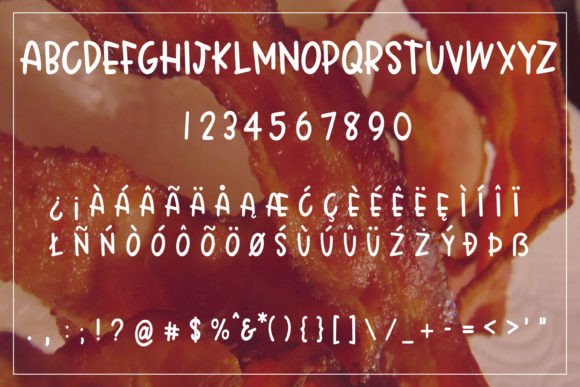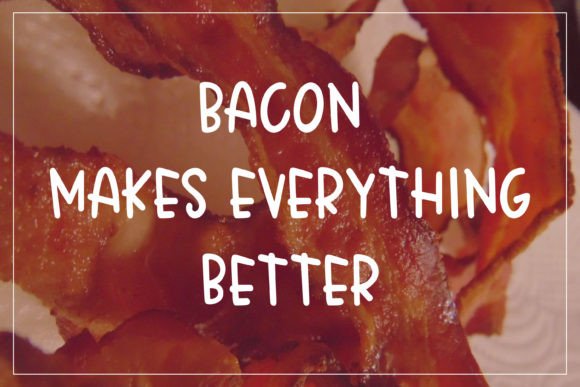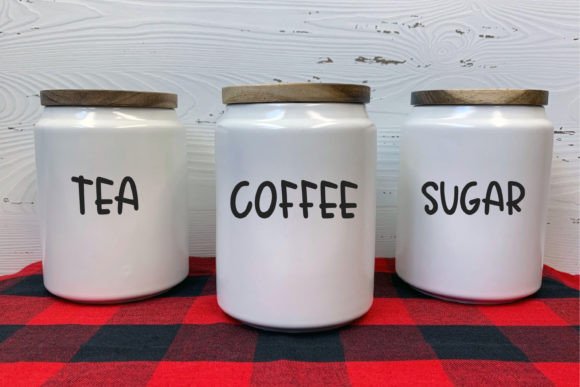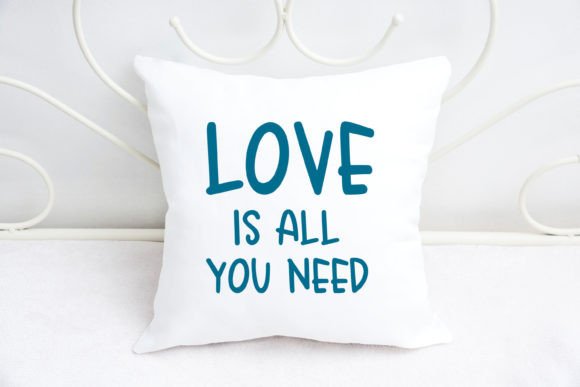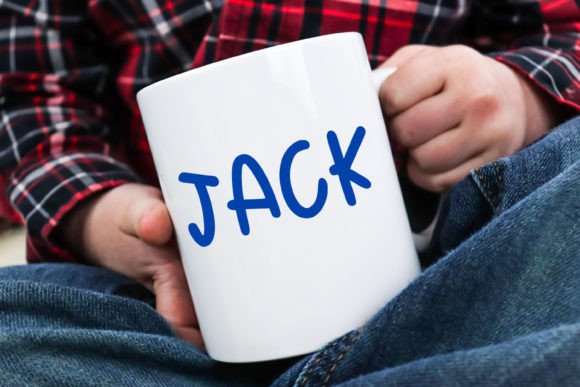
Introduction to Crispy Bacon Font
Remember that moment when you’re brainstorming ideas for your next creative project, and the perfect font just slips your mind? You’ve scrolled through countless design resources, but nothing seems quite right. That’s when you stumble upon a quirky little gem that makes your project come alive – and that’s exactly what we’re talking about today: the Crispy Bacon Font.
This delightful all-caps handwritten font is more than just a pretty face – it’s a high-quality design resource that’s perfect for craft projects, print designs, and more. With its transparent background and crisp lines, the Crispy Bacon Font is a free download that’s just begging to be used in your next creative endeavor.
Key Features of Crispy Bacon Font
- High-quality, unique font design perfect for creative projects and branding
- Features a transparent background, allowing for seamless integration with custom backgrounds and designs
- Includes a range of characters, including uppercase and lowercase letters, numbers, and special characters
- Designed with a high resolution (at least 300 DPI), ensuring crisp and clear text even at large sizes
- Unique and quirky design makes it perfect for adding a touch of personality to any creative project
Honest Review: Crispy Bacon Font
I recently stumbled upon the Crispy Bacon Font, a quirky and eye-catching design resource that has potential for various creative projects. One of the standout features of this font is its high quality, making it suitable for print or digital use. The transparent background also allows for seamless integration with other design elements.
What works well with the Crispy Bacon Font is its playful, whimsical feel, which can add a unique touch to a design project. It’s perfect for branding, advertising, or even social media graphics where you want to grab attention. The font is also a great option for designers who want to add a bit of humor or personality to their work.
- High-quality design that looks great in print or digital
- Transparent background for easy integration with other design elements
- Playful, whimsical feel that adds a unique touch to designs
- ⚠️ Limited font styles and variations, which may not be suitable for complex designs
- ⚠️ Not ideal for professional or formal designs where a more serious tone is required
Overall, the Crispy Bacon Font is a fun and creative design resource that can add a unique touch to your projects. While it may have some limitations, it’s definitely worth considering for designers who want to add some personality to their work.
Tips for Getting the Most Out of Crispy Bacon Font
For the best results, use Crispy Bacon Font on a high-quality design resource, such as a business card or flyer. The font’s unique design and transparent background make it perfect for creative projects that require a touch of sophistication.
Crispy Bacon Font is ideal for use in food-related projects, such as restaurant menus or food blogs. It’s also a great choice for creative projects, such as graphic novels or children’s book covers.